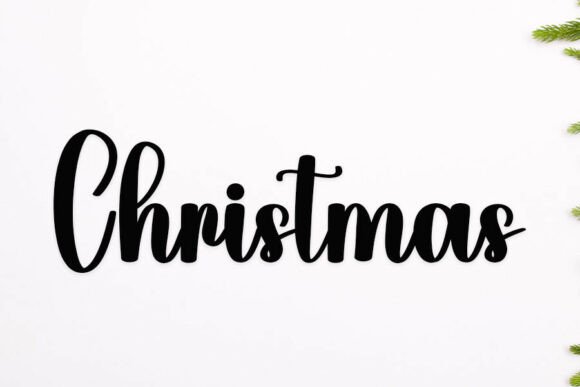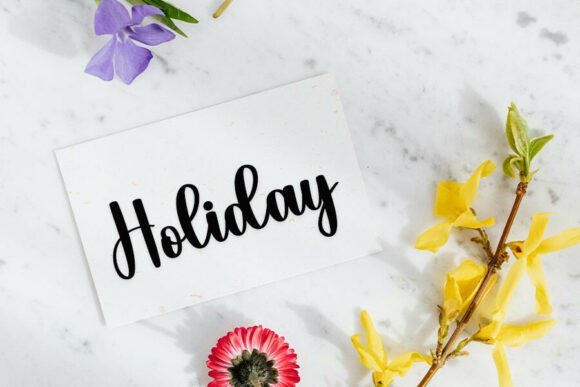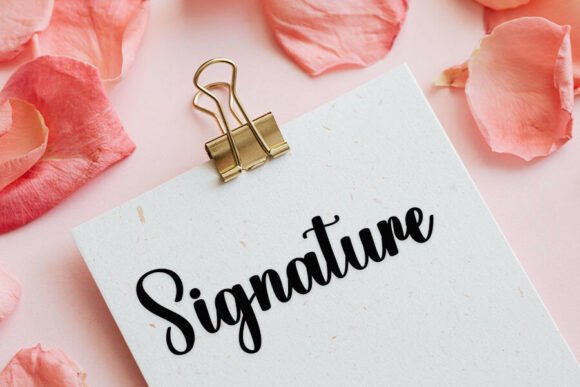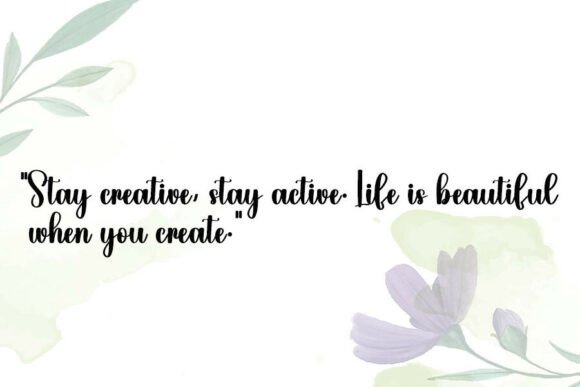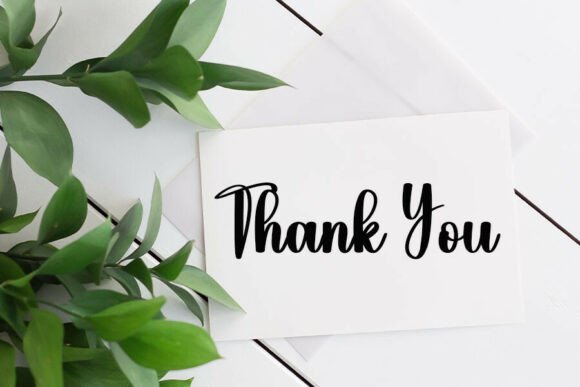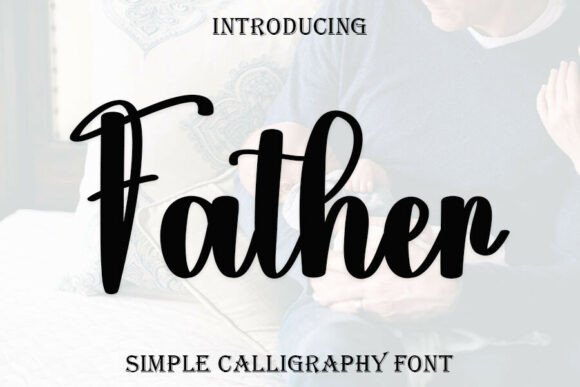
Introducing Father Font: The Sweet and Cursive Handwritten Font for Elegant Designs
Are you looking for a font that can add a touch of elegance and romance to your designs? Look no further than Father Font, a beautiful and cursive handwritten font that is perfect for a variety of design projects. With its gentle and sweet appearance, Father Font is sure to make your designs stand out and leave a lasting impression.
What Makes Father Font Special?
Father Font is a unique and versatile font that can be used for a wide range of design ideas. Its cursive and handwritten style gives it a personal and intimate feel, making it perfect for designs that require a touch of warmth and personality. Whether you’re working on a branding project, a wedding invitation, or a fashion lookbook, Father Font is sure to add a joyful and romantic touch to your design.
Father Font is a highly versatile font that can be used for a variety of design projects, including:
- Branding: Use Father Font to create a unique and memorable brand identity that stands out from the crowd.
- Logo Design: Create a beautiful and elegant logo that showcases your brand’s personality and style.
- Wedding Things: Add a touch of romance and elegance to your wedding designs, including invitations, programs, and decorations.
- Greeting Cards: Create beautiful and heartfelt greeting cards for special occasions, such as birthdays, anniversaries, and holidays.
- Fashion: Use Father Font to add a touch of elegance and sophistication to your fashion designs, including lookbooks, catalogs, and advertisements.
- Marketing Promotion: Create eye-catching and effective marketing materials, including brochures, flyers, and social media graphics.
Why Choose Father Font?
There are many reasons why Father Font is the perfect choice for your design projects. Here are just a few:
- Elegant and Sophisticated: Father Font has a elegant and sophisticated appearance that is perfect for designs that require a touch of luxury and refinement.
- Cursive and Handwritten: The cursive and handwritten style of Father Font gives it a personal and intimate feel that is perfect for designs that require a touch of warmth and personality.
- Versatile: Father Font is highly versatile and can be used for a wide range of design projects, from branding and logo design to wedding things and greeting cards.
- Easy to Read: Despite its elegant and cursive appearance, Father Font is easy to read and understand, making it perfect for designs that require a clear and concise message.
How to Use Father Font
Using Father Font is easy and straightforward. Here are a few tips to get you started:
- Pair it with Other Fonts: Father Font looks great when paired with other fonts, including sans-serif fonts and serif fonts.
- Use it for Headings: Father Font is perfect for headings and titles, where its elegant and cursive appearance can really shine.
- Experiment with Colors: Father Font looks great in a variety of colors, from bold and bright to soft and pastel.
In conclusion, Father Font is a beautiful and versatile font that is perfect for a wide range of design projects. Its elegant and cursive appearance makes it perfect for designs that require a touch of luxury and refinement, while its easy-to-read style makes it perfect for designs that require a clear and concise message. Whether you’re a designer, a crafter, or just someone who loves to create, Father Font is sure to become a favorite in your font collection.